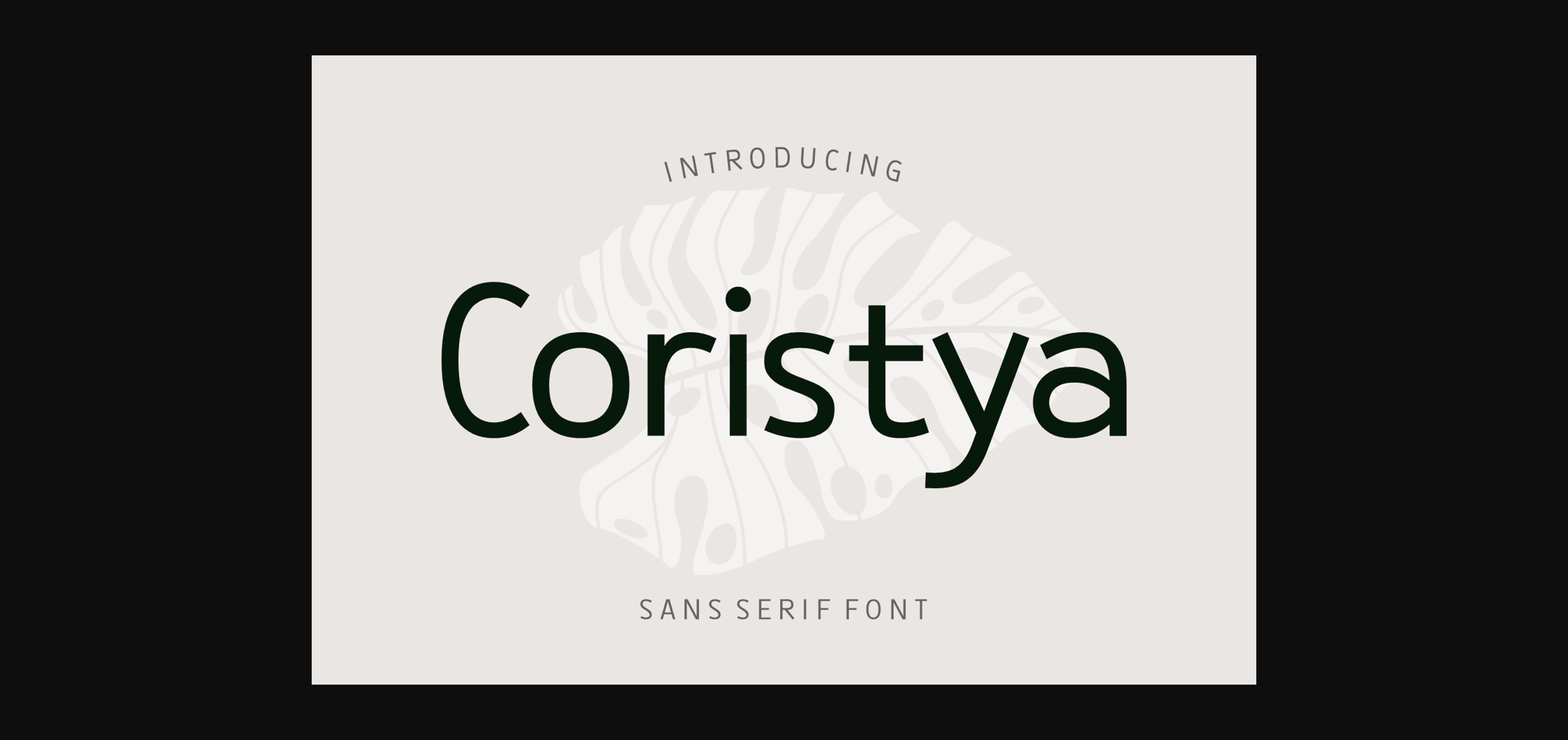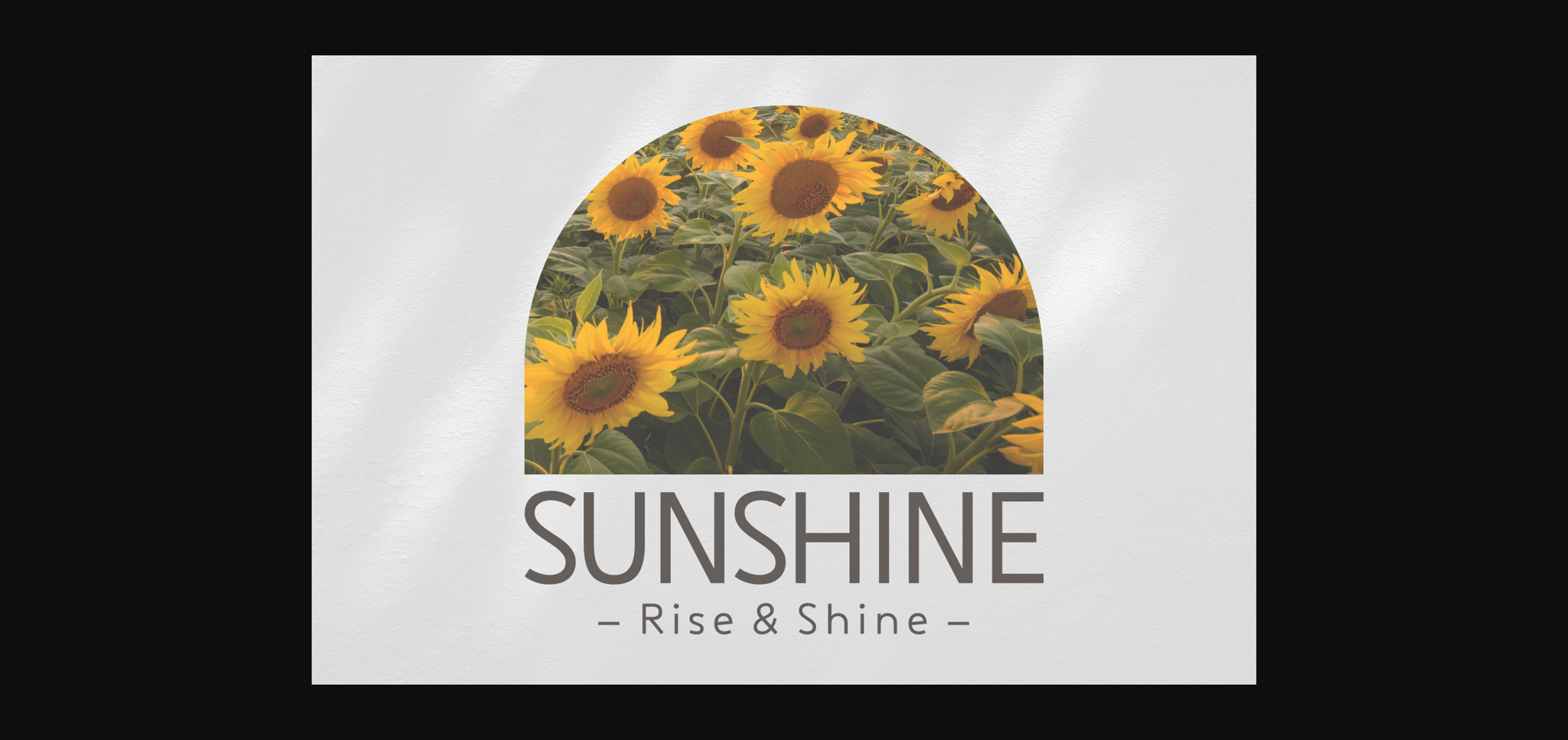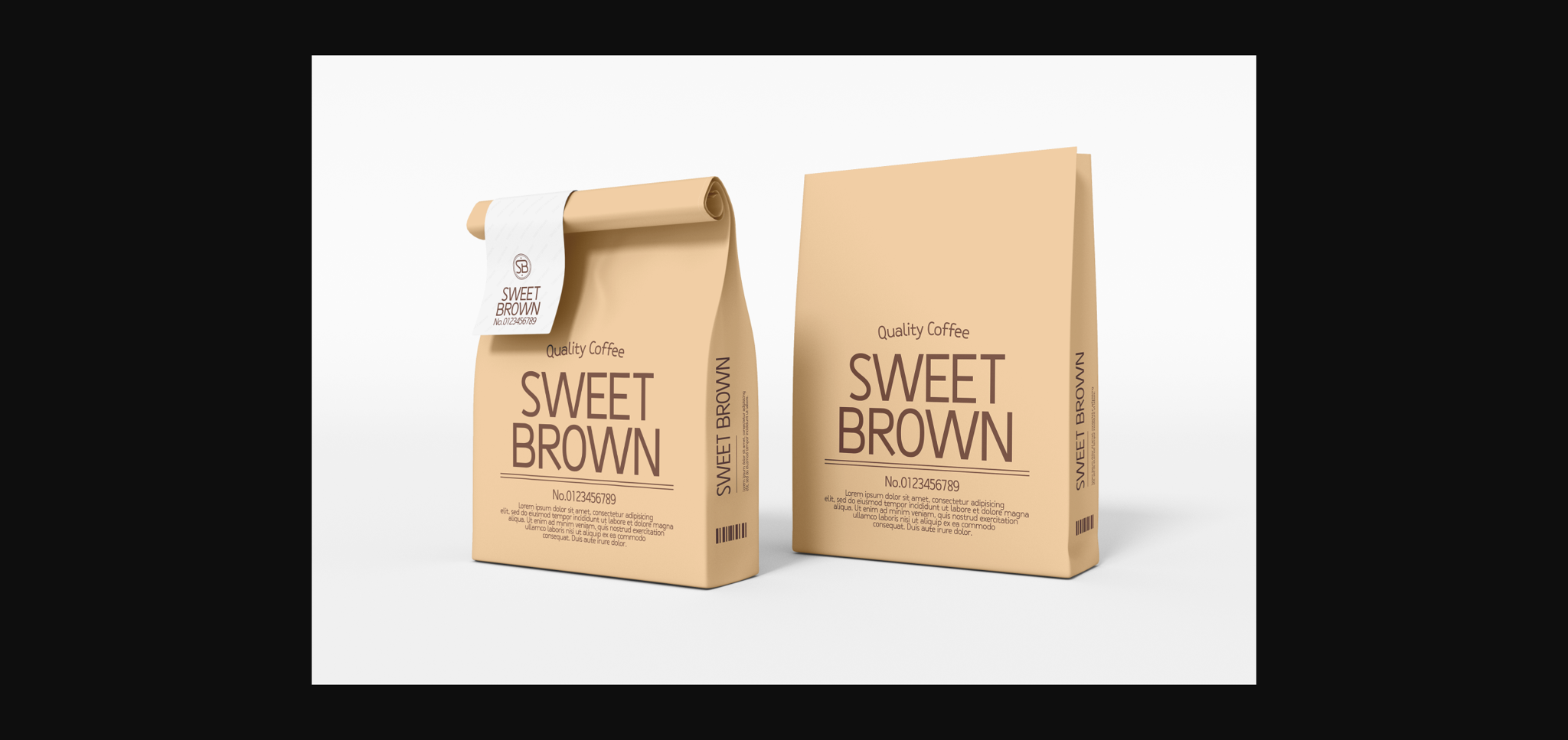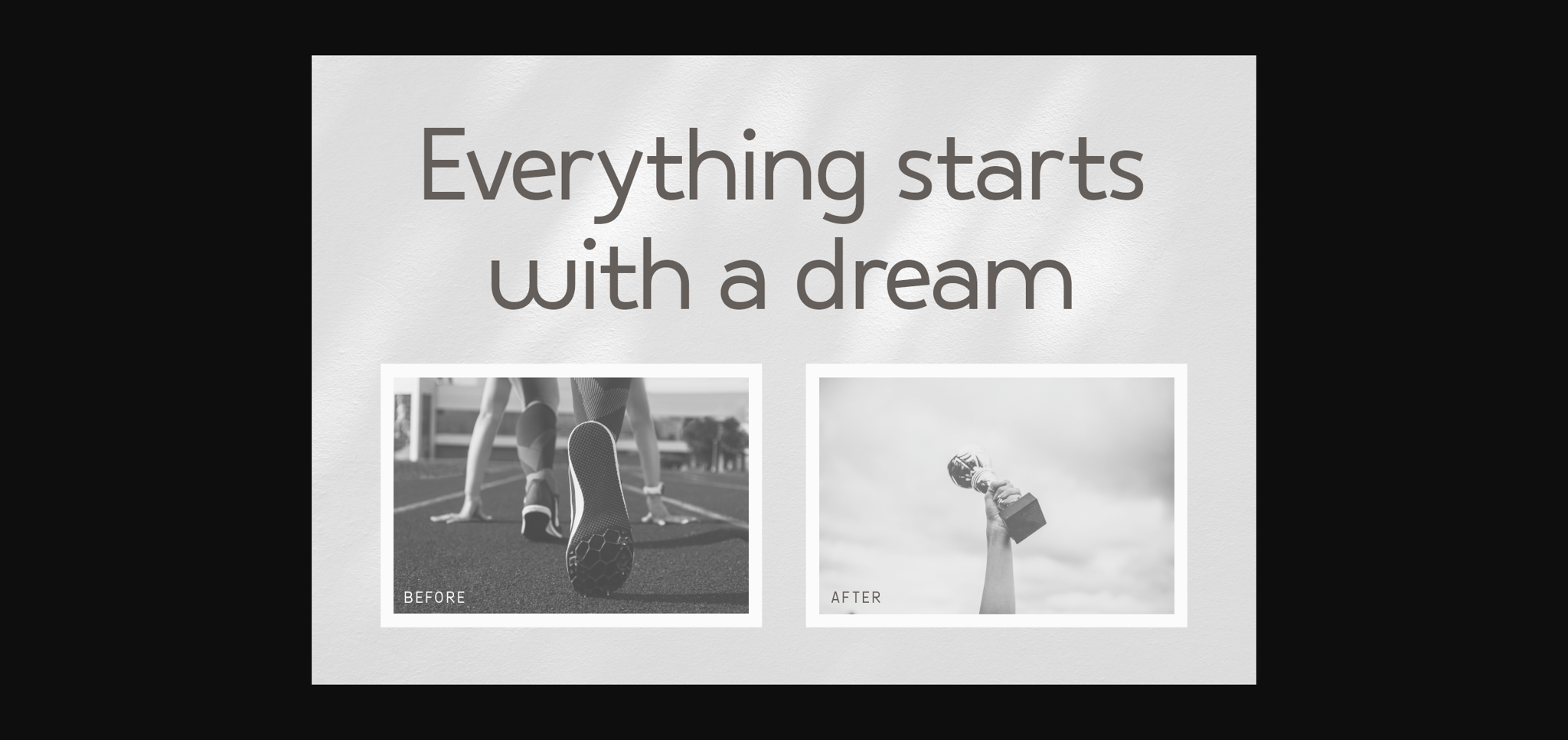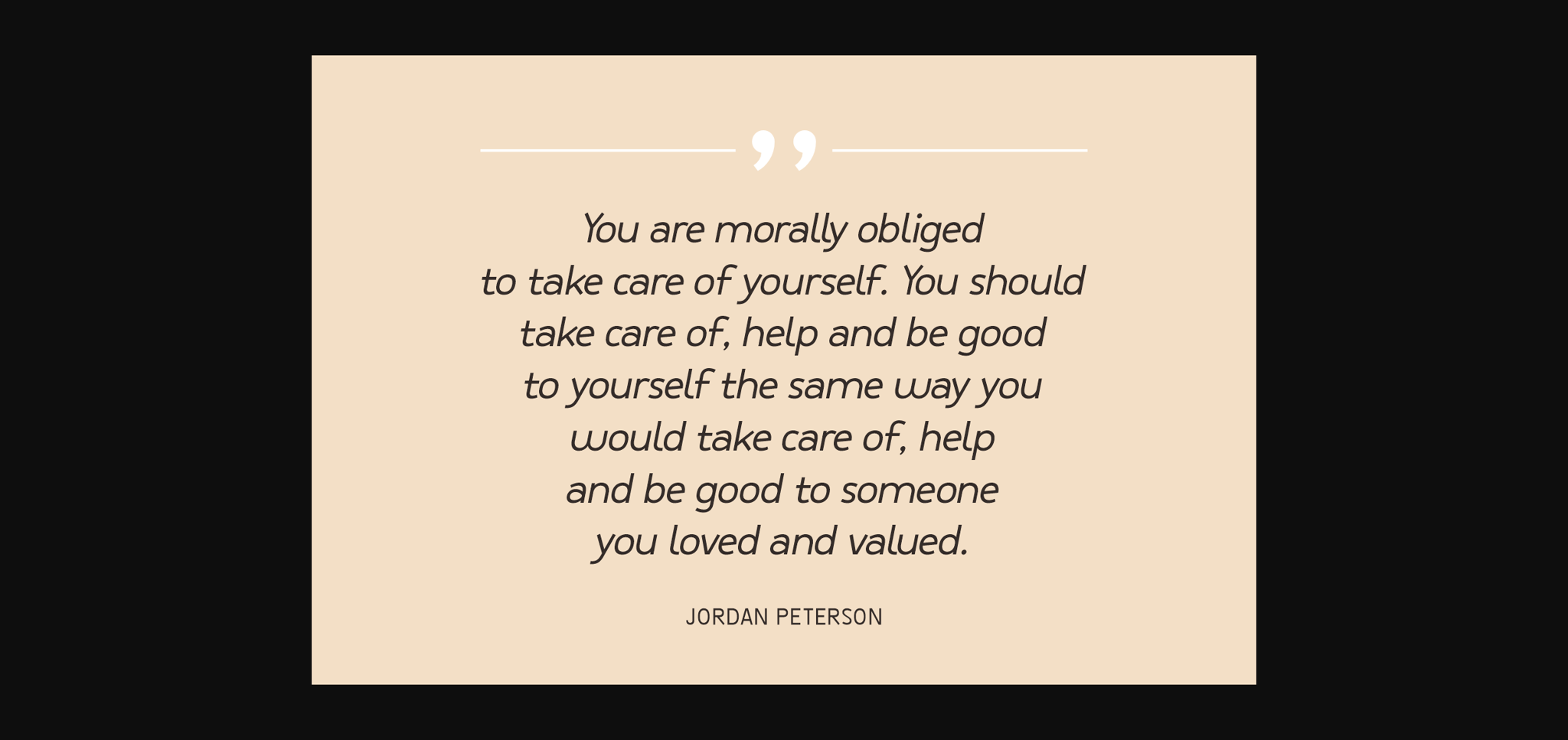
Coristya Font
About Coristya Font
Coristya is an adaptable sans-serif font graced with sophisticated minimalism font. It boasts a distinctive, unblemished design, making it a perfect match for projects requiring an expert touch. Its remarkable feature is the multilingual support, a keen attribute that enables your message to resonate with a worldwide audience. From crafting your digital presence, aligning your branding collateral, to spearheading marketing initiatives, Coristya is a dependable choice that you’ll continually reach for in your creative repertoire.